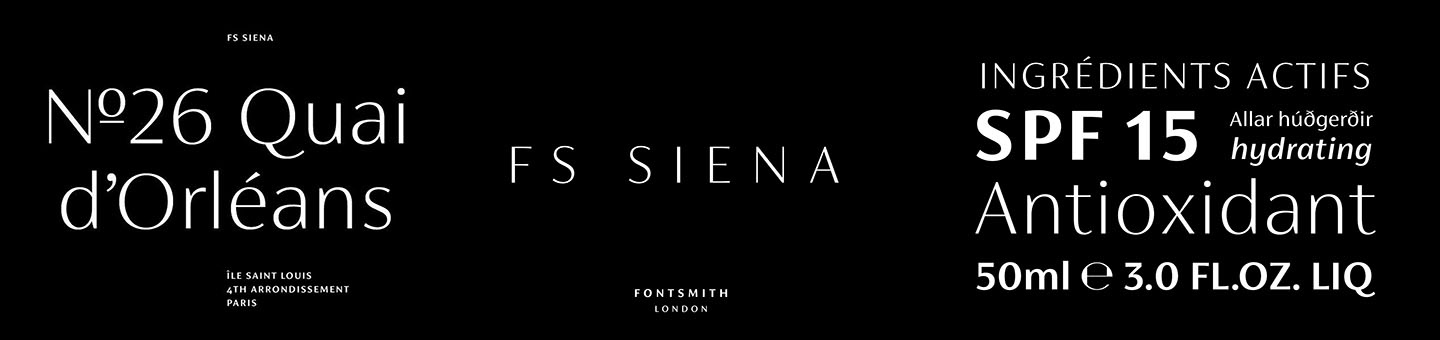
FS Siena Font is perfect for Italian luxury branding, Mediterranean lifestyle marketing, artisanal product packaging, Tuscan-inspired design, wine label typography, olive oil branding, Italian restaurant signage, cultural heritage communications, Renaissance-themed projects, and sophisticated travel marketing.
FS Siena Font is exciting because it captures the timeless elegance and artistic heritage of the Italian Renaissance with its beautifully crafted letterforms that evoke the cultural richness and sophisticated craftsmanship of historic Siena. Its refined character design combines Italian artistry with contemporary functionality, making it perfect for brands that want to communicate authenticity, cultural sophistication, and the enduring beauty of Italian design traditions.
The FS Siena Font family includes Light, Regular, Medium, Bold weights, elegant Italic variations, Small Caps styles, Renaissance alternates, Tuscan flourishes, Italian ornaments, and Heritage elements, providing designers with comprehensive tools for creating authentically Italian typography that celebrates the artistic legacy and cultural sophistication of the Italian Renaissance.
FS Siena Font Free Download brings the sophisticated beauty of Italian Renaissance design to contemporary branding applications, featuring meticulously crafted letterforms that honor centuries of Italian artistic tradition while serving modern luxury market needs. This distinguished typeface combines cultural authenticity with professional functionality, creating the perfect solution for brands operating in luxury goods, artisanal products, and Mediterranean lifestyle markets.
Whether you're developing Italian luxury brands, designing artisanal product packaging, creating cultural tourism materials, or producing Mediterranean lifestyle content, FS Siena Font provides the authentic foundation needed for credible Italian positioning. Its Renaissance character makes it particularly effective for Italian wine producers, artisanal food brands, luxury travel companies, and cultural organizations that celebrate Italian heritage and sophisticated craftsmanship.
Perfect for luxury Italian marketers, artisanal brand designers, cultural heritage communicators, and creative professionals working with Mediterranean lifestyle brands, this font offers the authentic qualities essential for successful Italian market positioning. The typeface's sophisticated nature ensures consistent elegance across both traditional Italian applications and contemporary luxury communications.
FS Siena Font includes comprehensive Italian character sets, Renaissance typography features, and culturally optimized spacing that guarantees superior performance in Italian heritage design applications. Its authentic approach to Italian typography makes it indispensable for brands celebrating Italian culture and Renaissance artistry. Embrace Italian elegance with FS Siena Font Free Download and create typography that truly captures la bella vita.